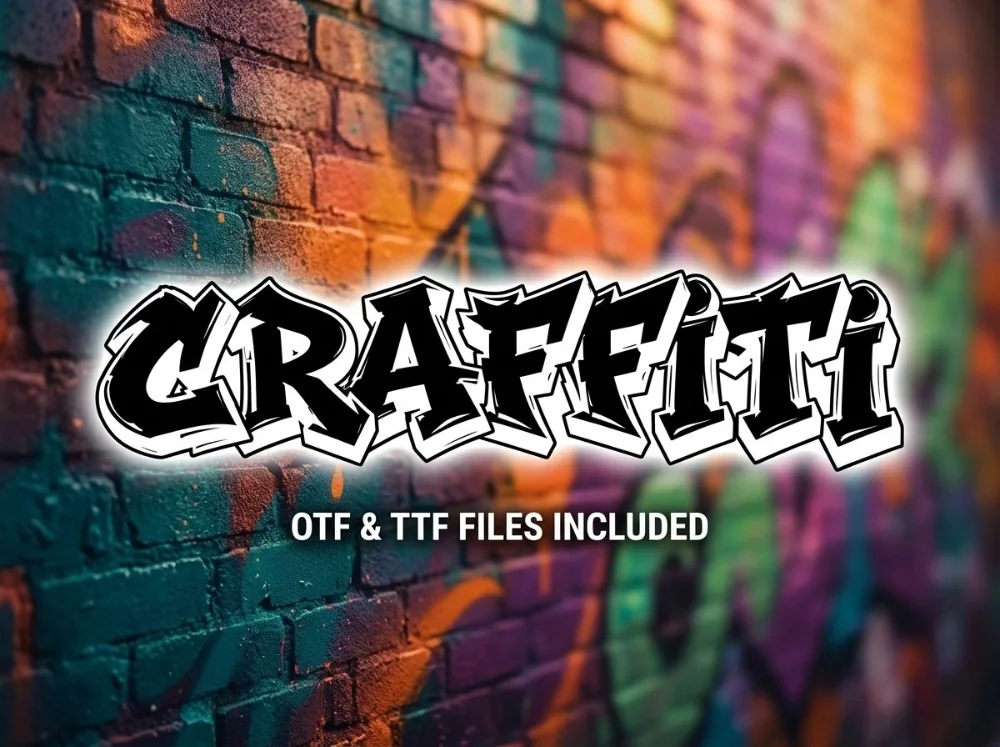
Freehand Street Tag Font
This street tag font was picked for the collection because it solves a problem the obvious choices do not. Fast, loose and unmistakably drawn by hand in a single pass. It brings movement to layouts that feel too static.
Strokes taper where the hand sped up and thicken where it paused, and the baseline drifts on purpose. Letters sit at slightly different angles, so no two words look identical.
Great for signatures, sticker packs, journal spreads, and captions layered over photographs.
Worth knowing: tighten the letter spacing well past what feels comfortable. Painted lettering is set tight, and default digital spacing makes this genre look oddly polite.